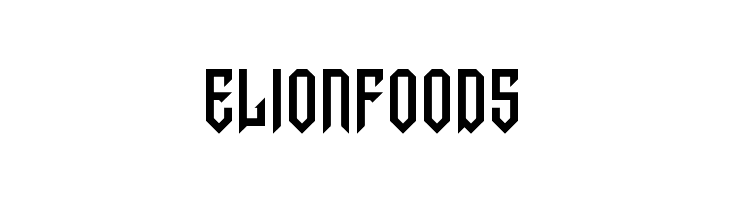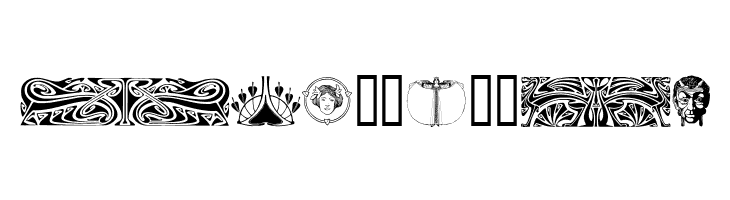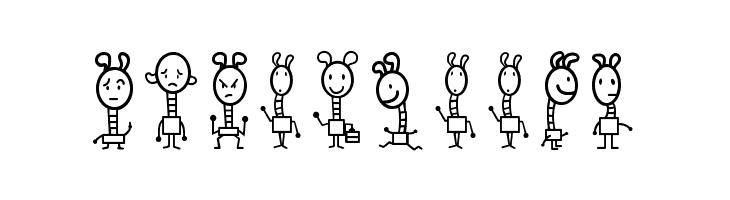
A collection of decorative and ornate symbols with vintage and edgy themes.
A bold, angular font with a gothic, medieval aesthetic.
An Art Nouveau-inspired decorative font with intricate, ornamental designs.
Whimsical cartoon character font with playful, expressive figures.